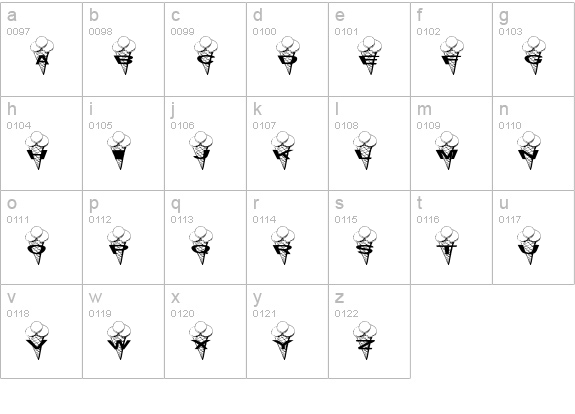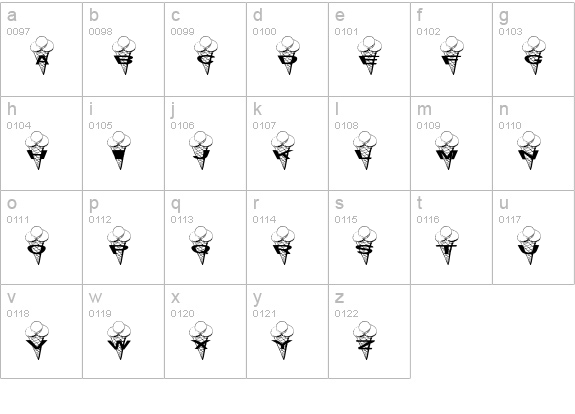
35°C Font Details
The 35°C font is a stunning display typeface that exudes warmth and sophistication. Its sleek lines and modern design make it perfect for a wide range of projects, from branding to editorial design. This versatile font is sure to make your text stand out and leave a lasting impression on your audience. Best of all, the 35°C font is completely free to download at FontsMarket.com. With just a few clicks, you can add this stylish font to your collection and start using it in your projects right away. Don't miss out on this amazing opportunity to enhance your designs with the 35°C font - download it now and see the difference it can make!